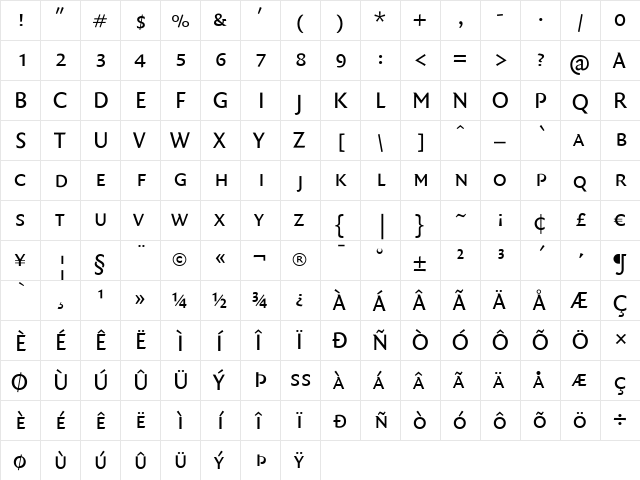
QuadraatSans SmallCaps
Design Context for QuadraatSans Typeface
QuadraatSans is a composed and adaptable typeface that performs quietly and consistently across a wide range of design contexts.